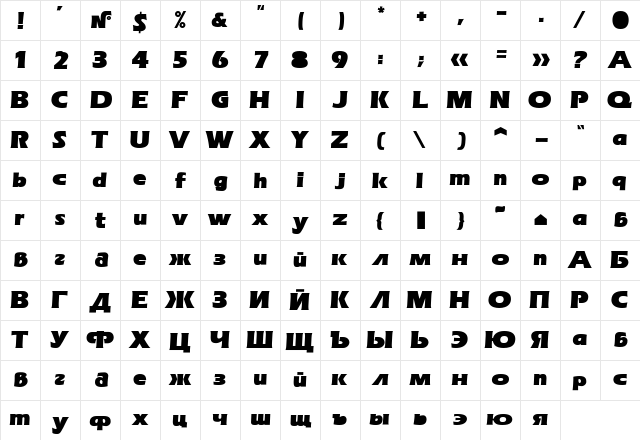
ErasUltra Normal
Design Context for ErasUltra Typeface
ErasUltra is a composed and adaptable typeface that performs quietly and consistently across a wide range of design contexts.